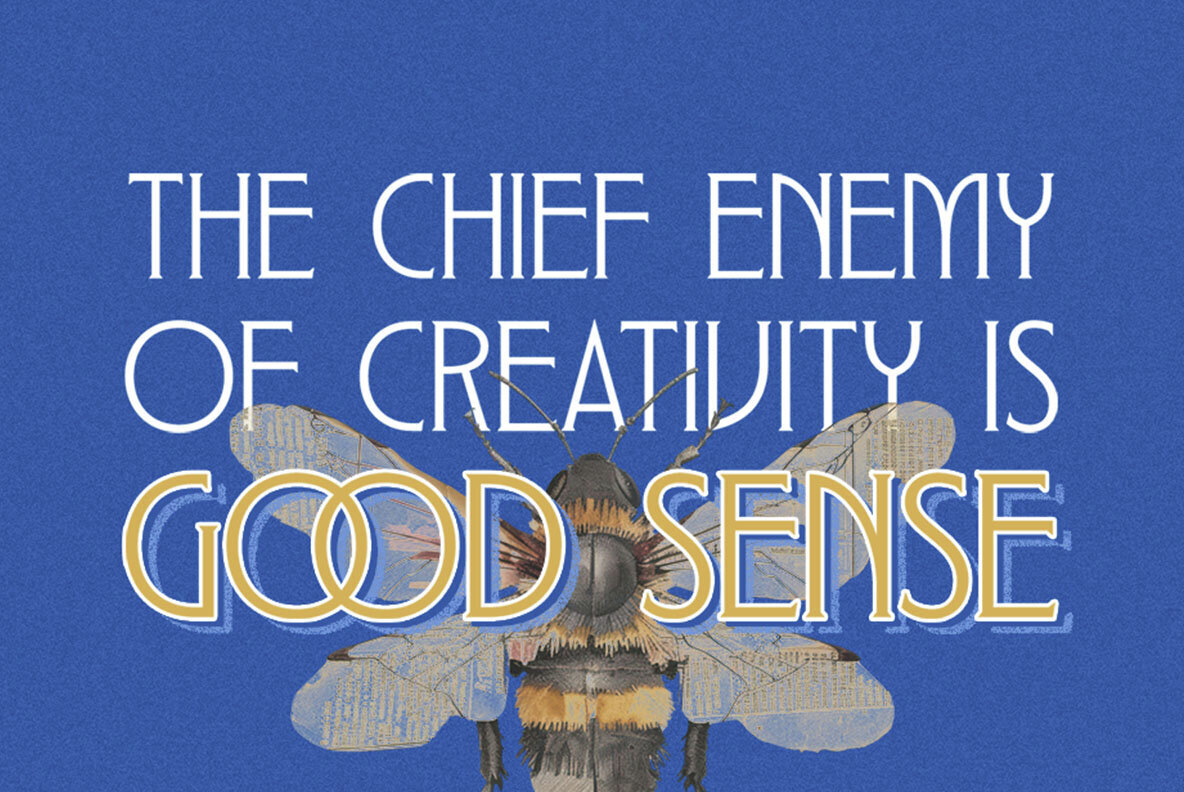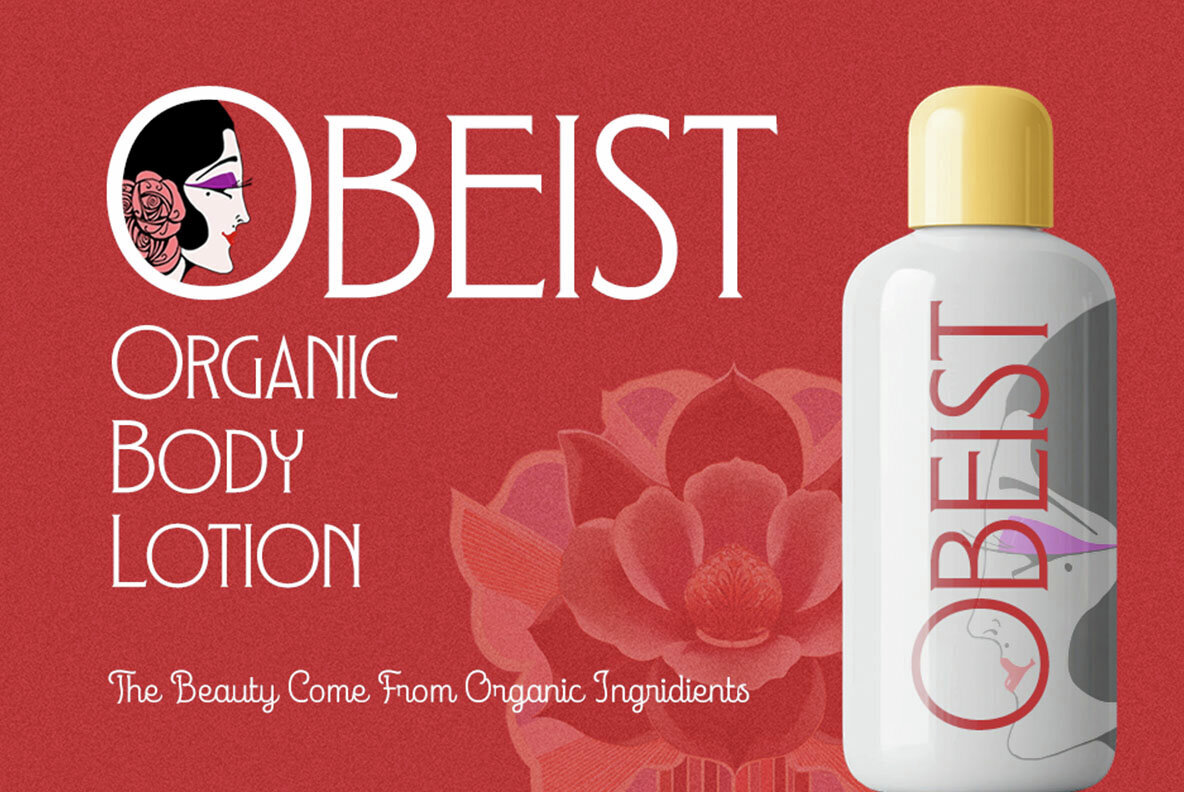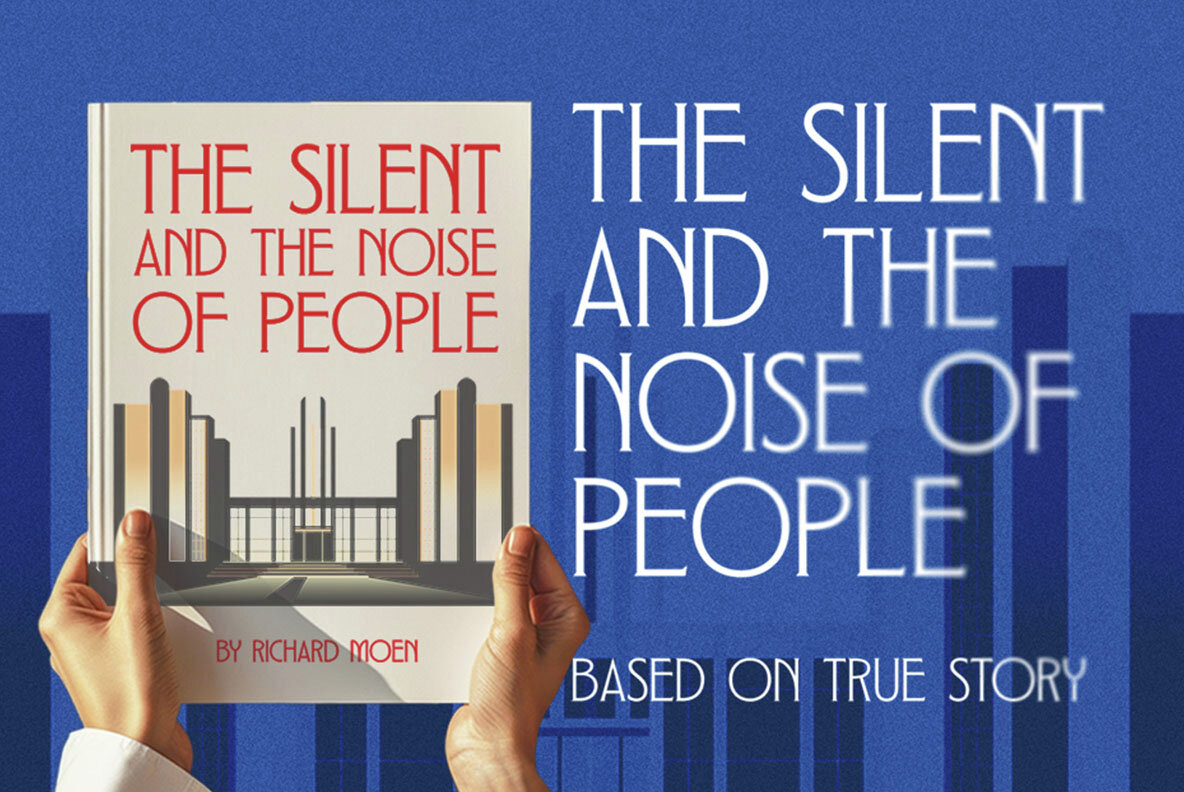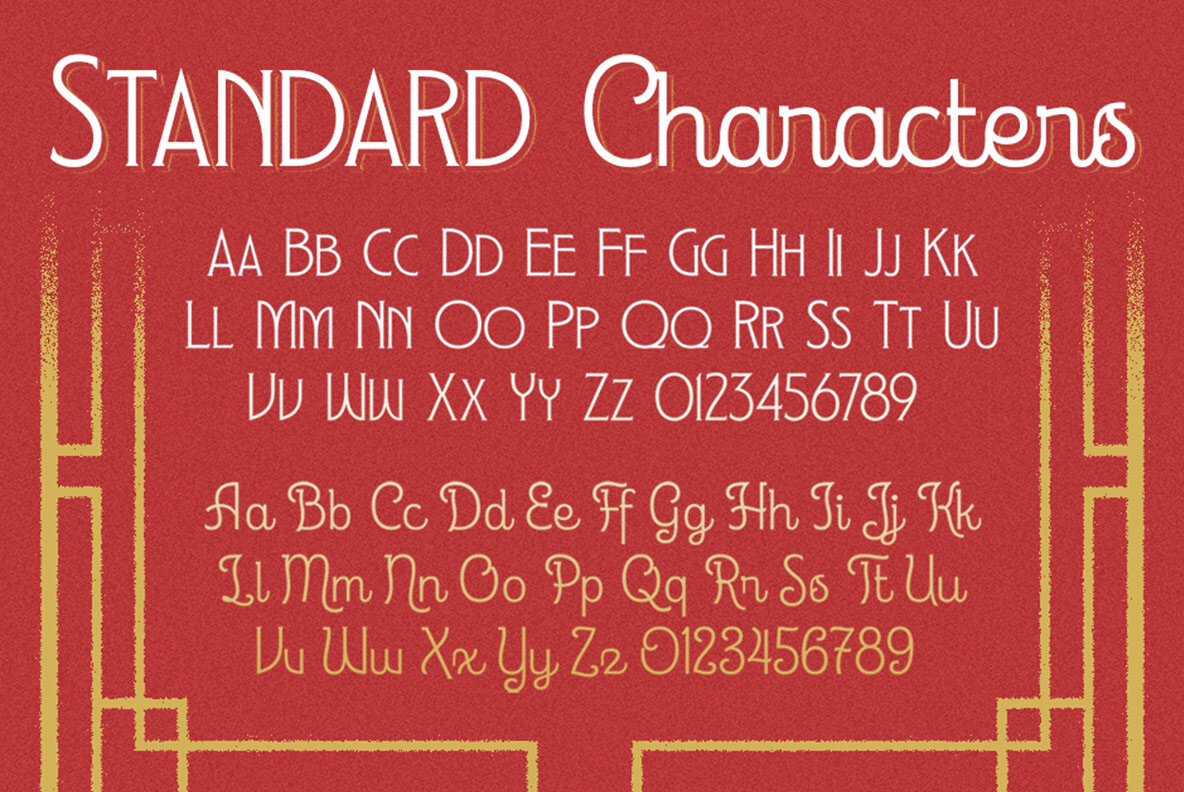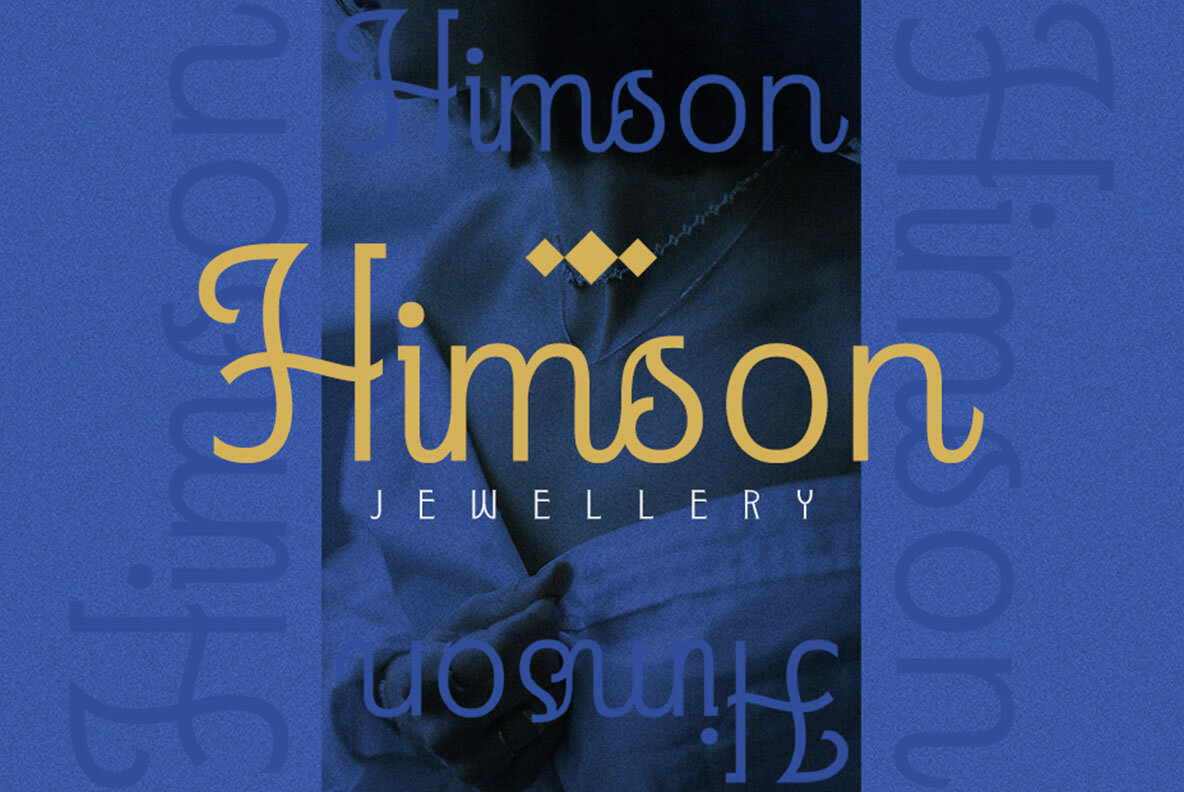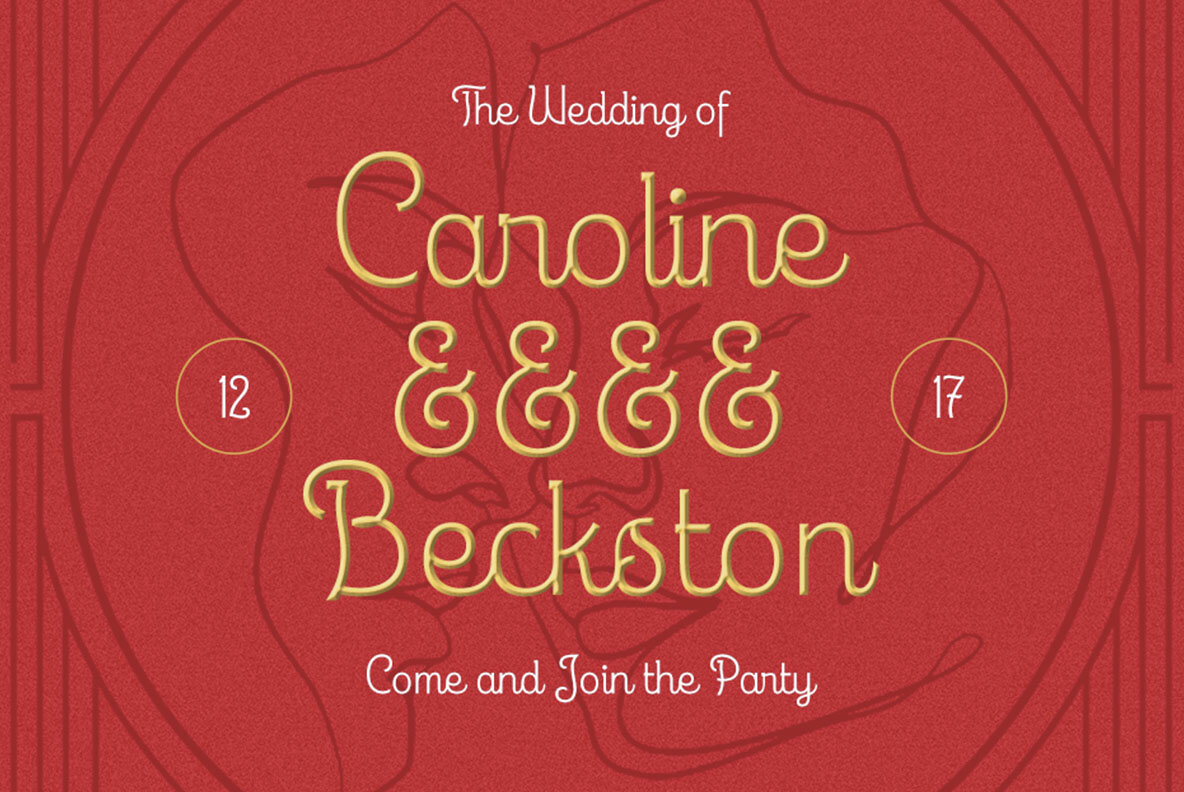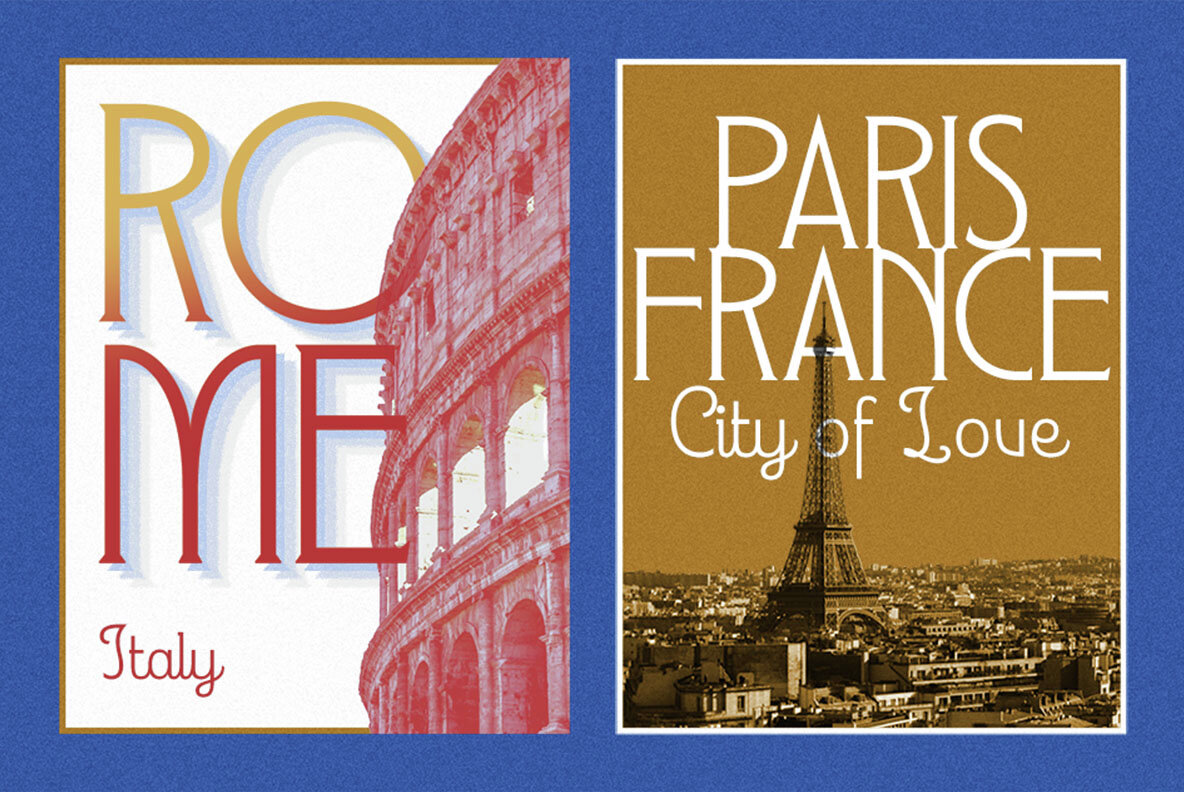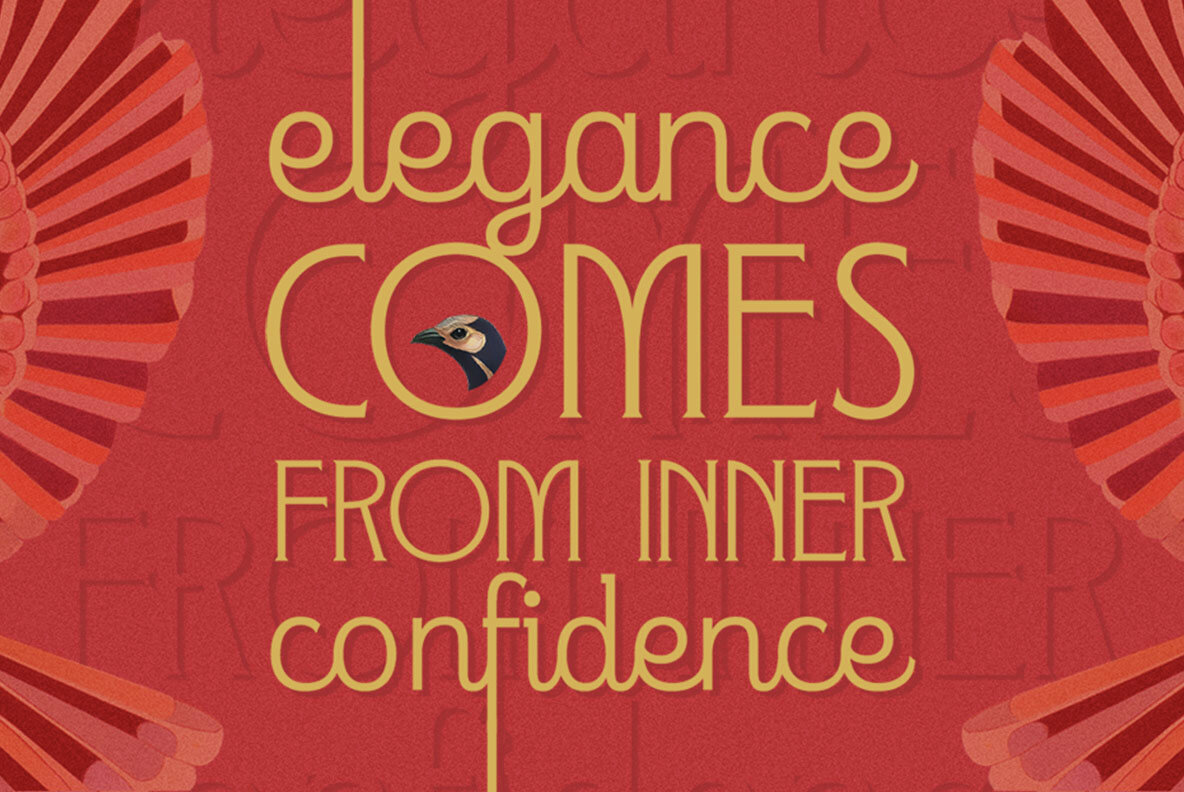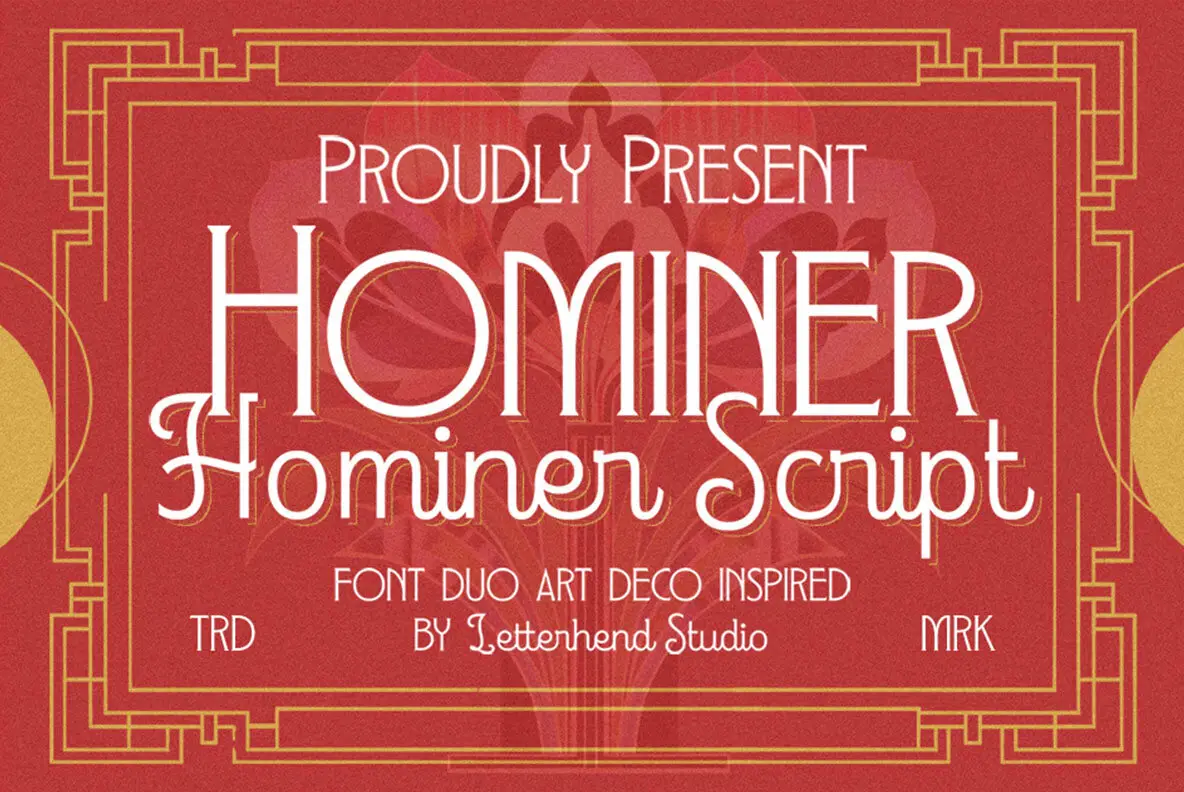
Hominer Font
Hominer
Hominer Script
Hominer is a distinguished font duo inspired by the timeless allure of the Art Deco era. It combines a tall, elegant serif with a retro script, offering a blend of vintage sophistication and playful flair. Ideal for branding, posters, and editorial designs, Hominer delivers a glamorous, nostalgic aesthetic. This font duo provides both structure and softness, making it an exemplary choice for any project seeking a classic yet dynamic feel. For optimal use, it is recommended to utilize a program supporting OpenType features and Glyphs panels, such as Adobe applications and Corel Draw, to access the complete range of character variations.Hominer Font Duo: Art Deco Elegance Meets Retro Charm